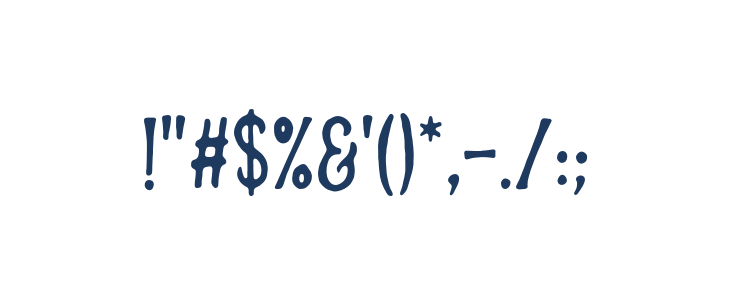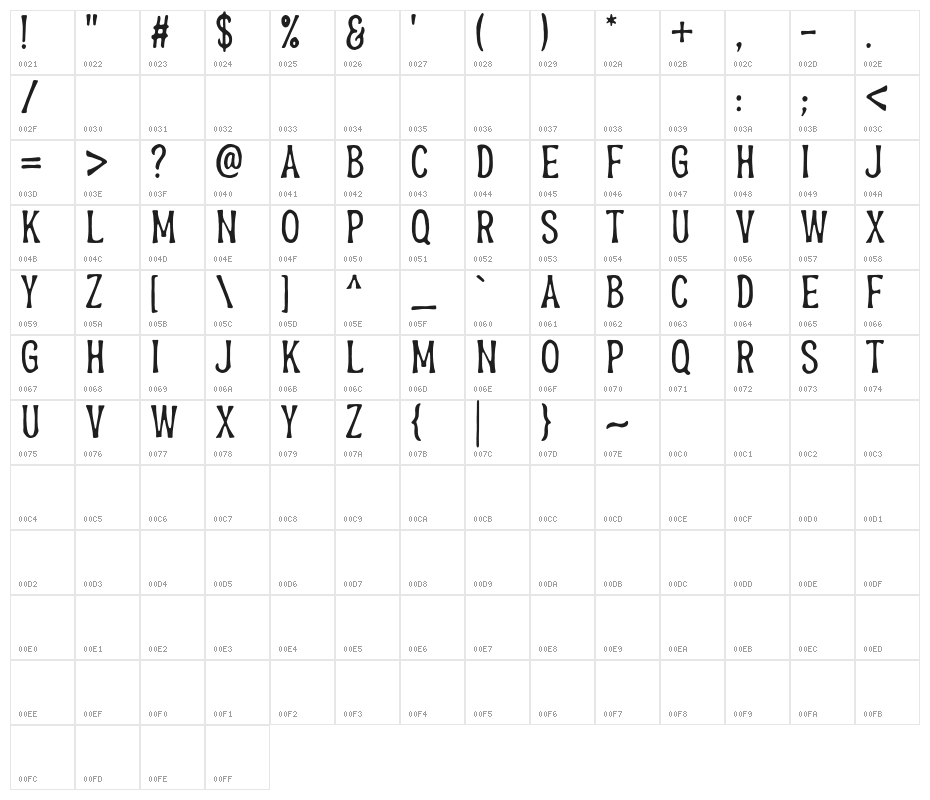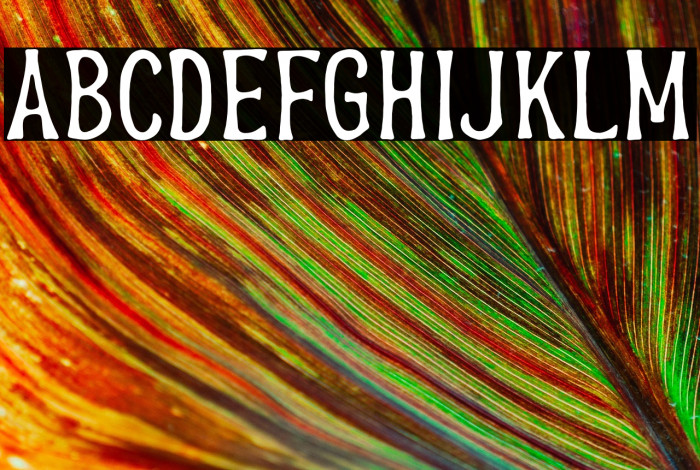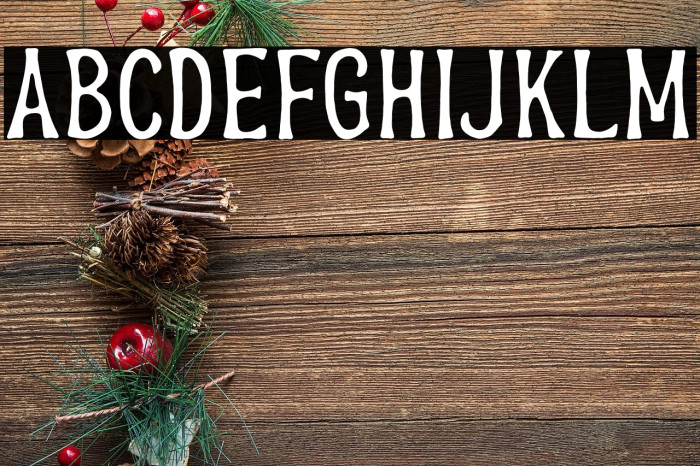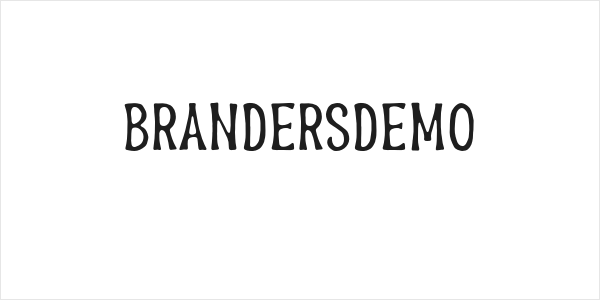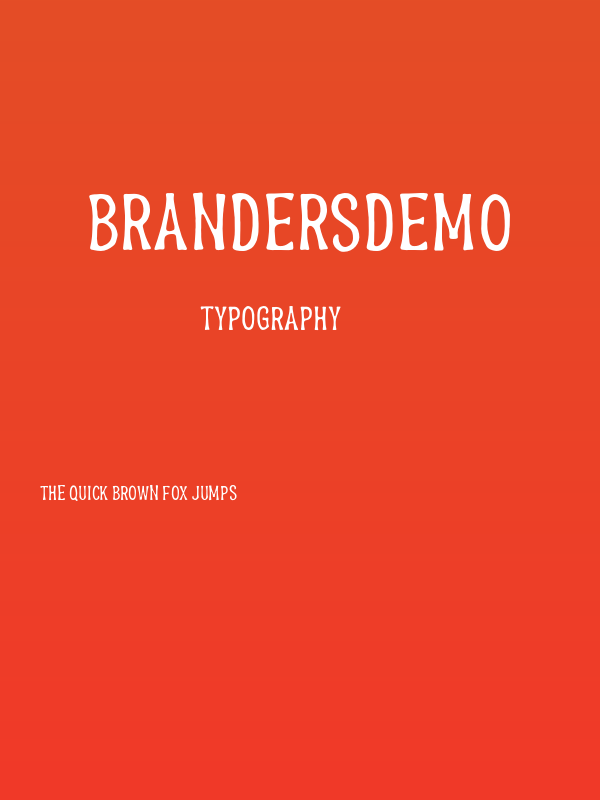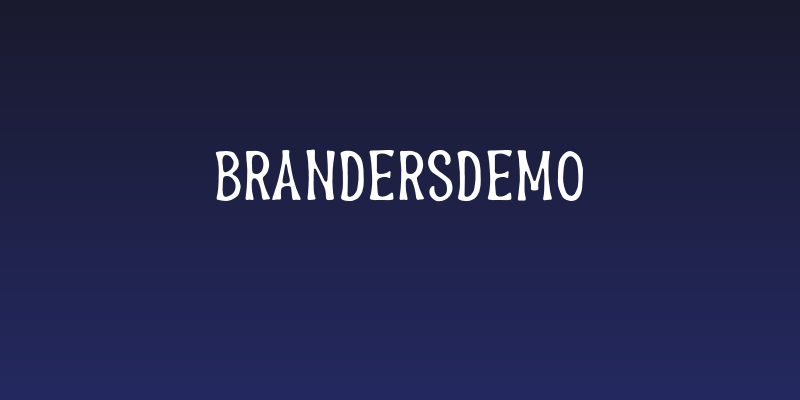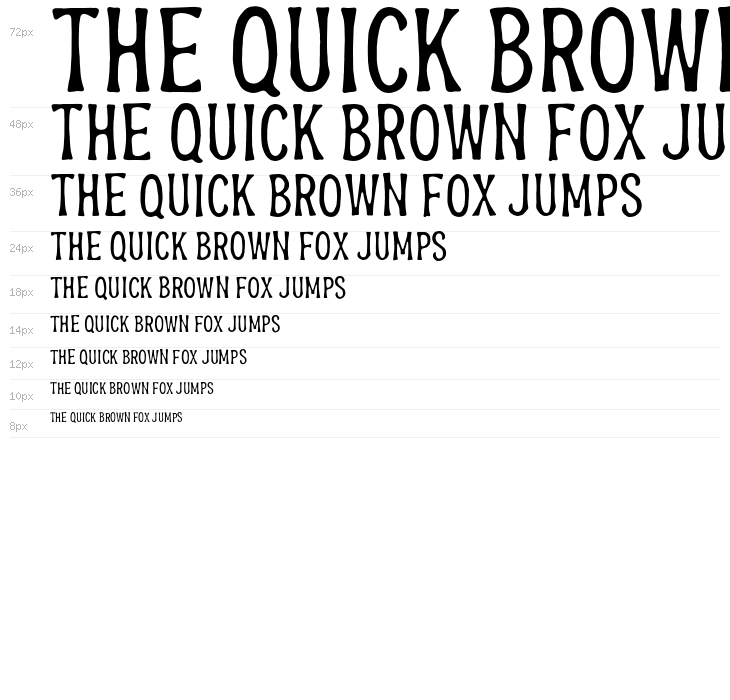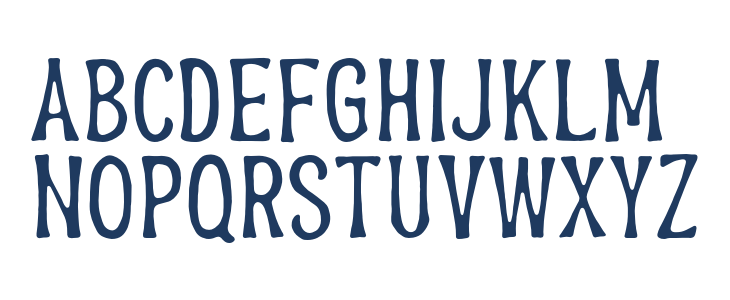
BrandersDEMO Font
BrandersDEMO Description
This font features a playful and slightly whimsical design, characterized by its uneven stroke widths and slightly irregular shapes. The letters have a hand-drawn quality, giving them a unique and approachable appearance. The uppercase letters are bold and prominent, while the lowercase letters maintain a consistent style. The numbers and special characters follow the same playful aesthetic, making the font versatile for various creative projects. The overall look is casual yet distinctive, perfect for adding a touch of personality to any design.